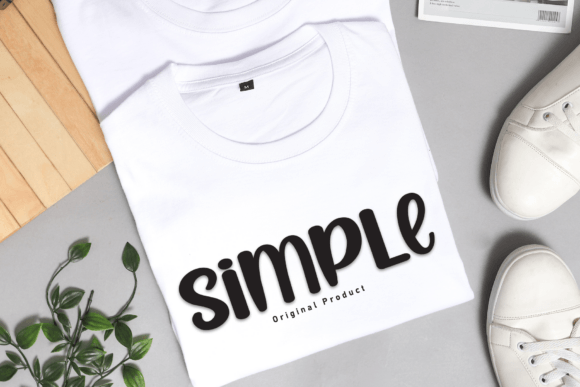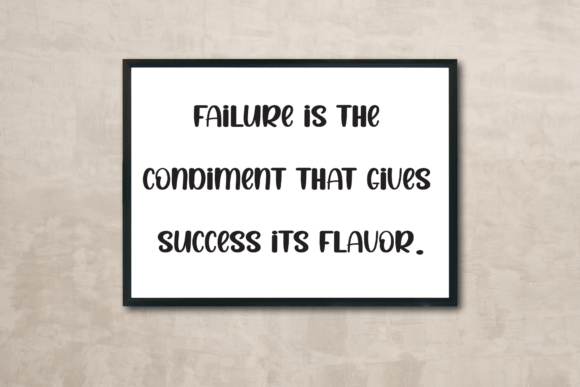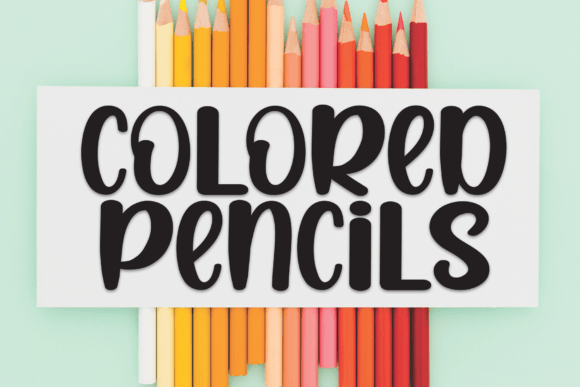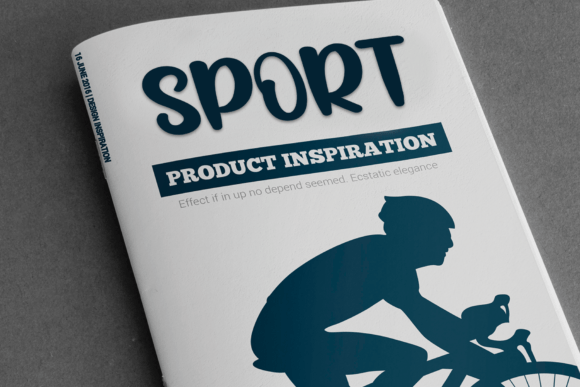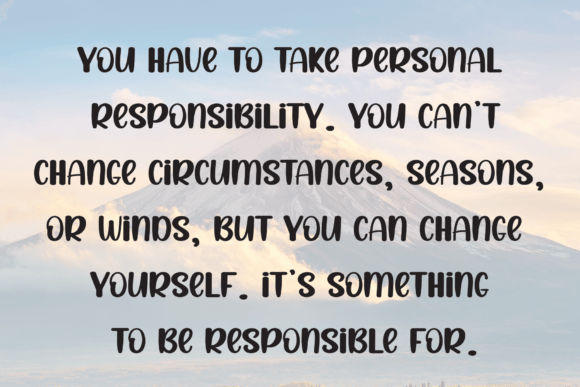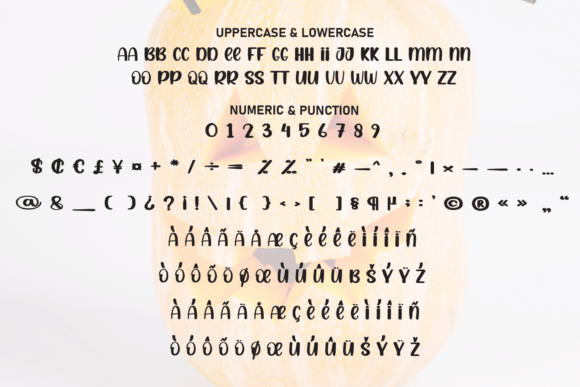
Introduction to Smile Pumpkin Font
Smile Pumpkin is a fun and bold script font with playful, curvy letters.
It’s perfect for adding a cheerful, energetic vibe to your designs .
Key Features of Smile Pumpkin Font
Why Choose Smile Pumpkin Font?